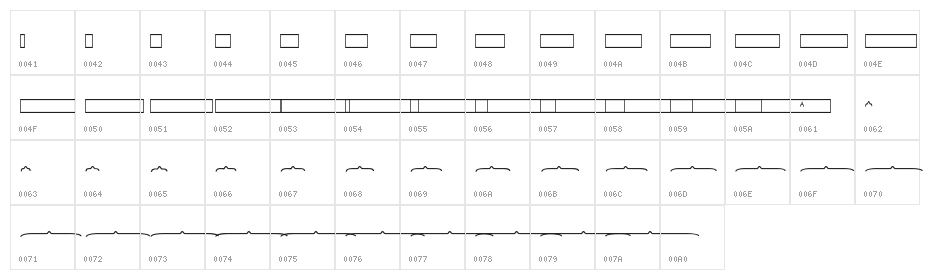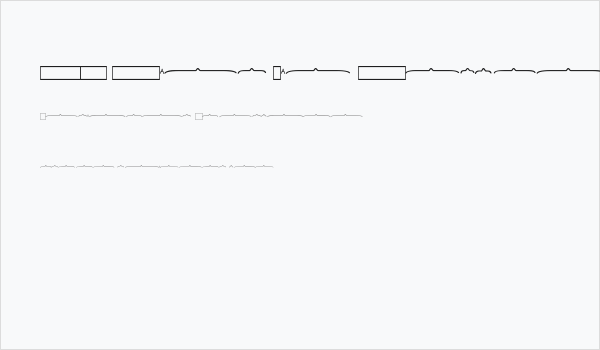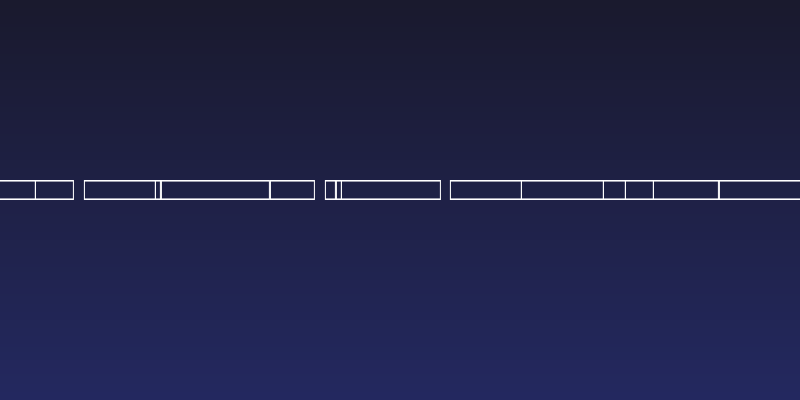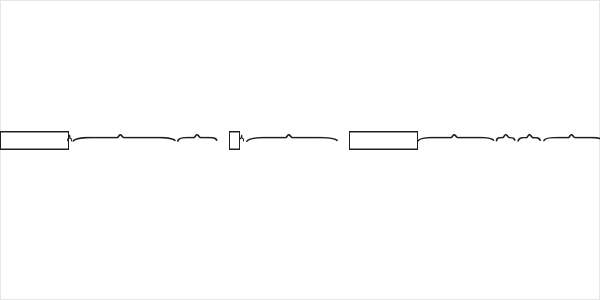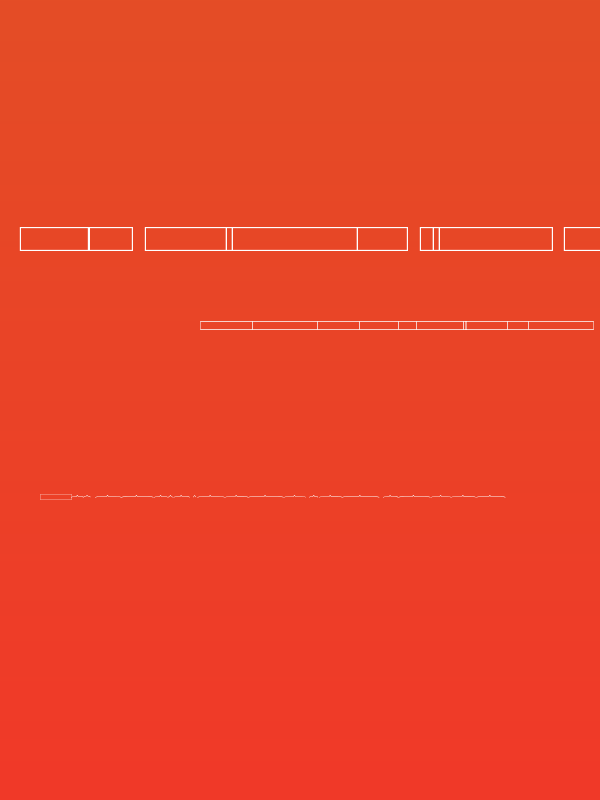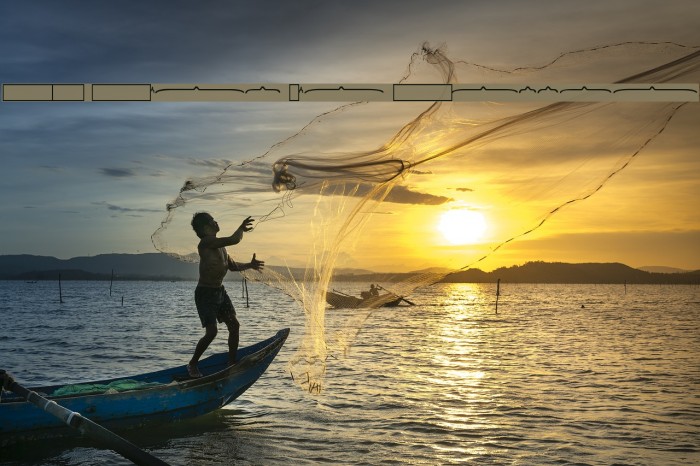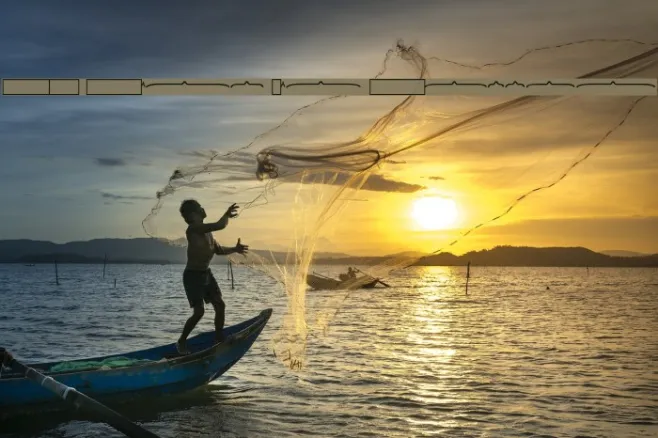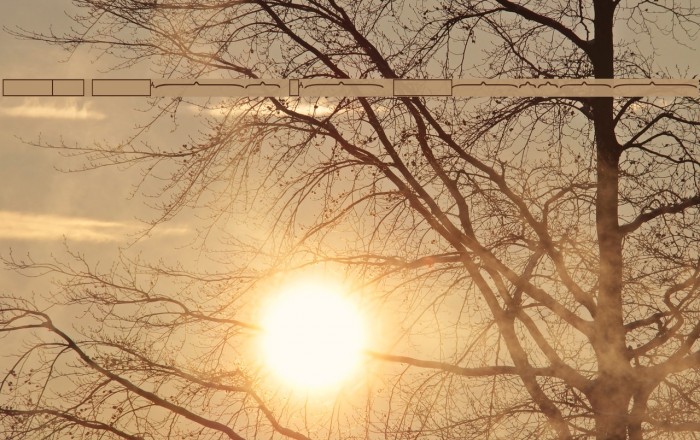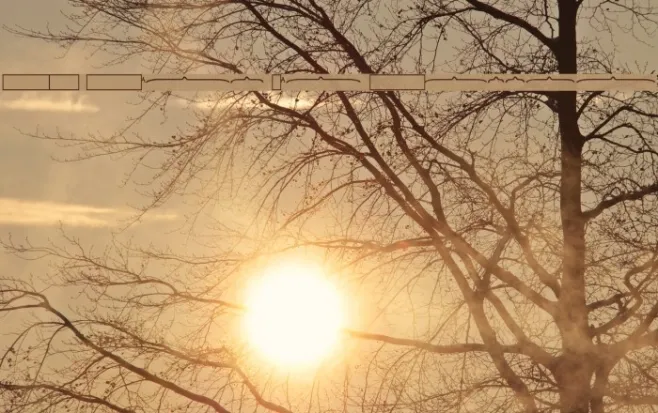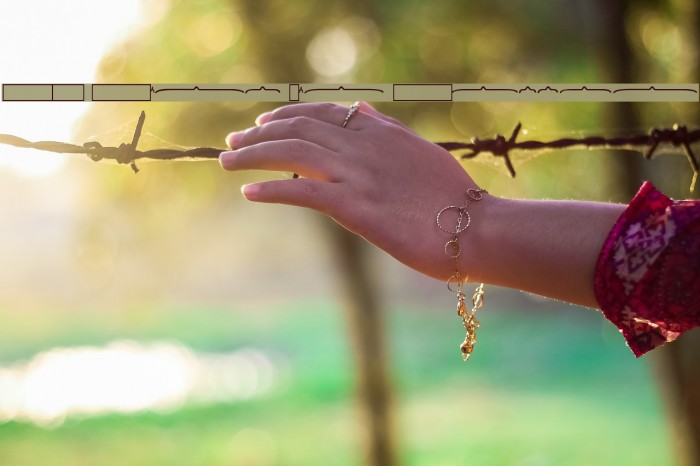
KG Math Bar Models Font
KG Math Bar Models Description
A collection of geometric bar and line shapes with both straight and hand-drawn, wavy outlines, designed to represent mathematical models or visual aids for educational purposes. The characters are not traditional alphanumeric glyphs but rather visual elements for diagramming.
| Overall Style | Educational, Functional, Hand-drawn |
| Use Case | Math visuals, educational diagrams, instructional materials |
| Proposed Projects | Math worksheets, educational posters, teaching aids, interactive whiteboard resources. |